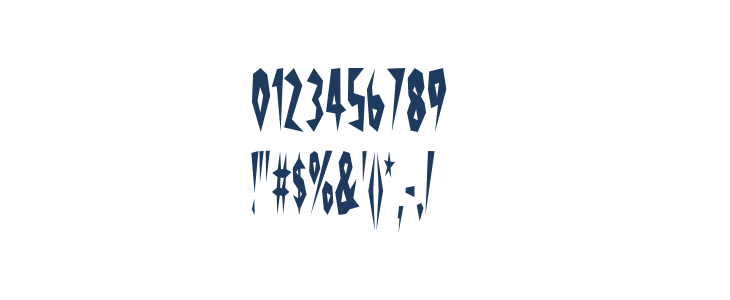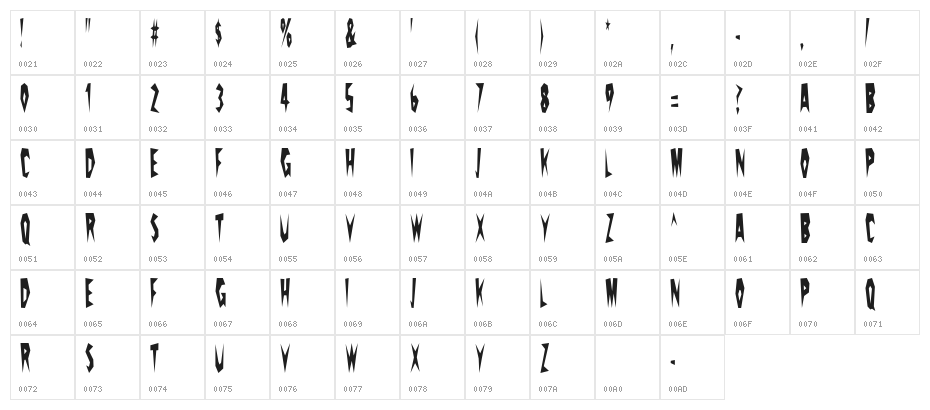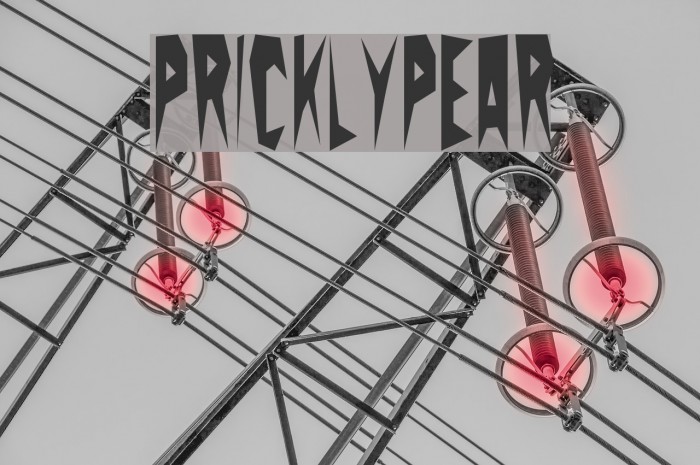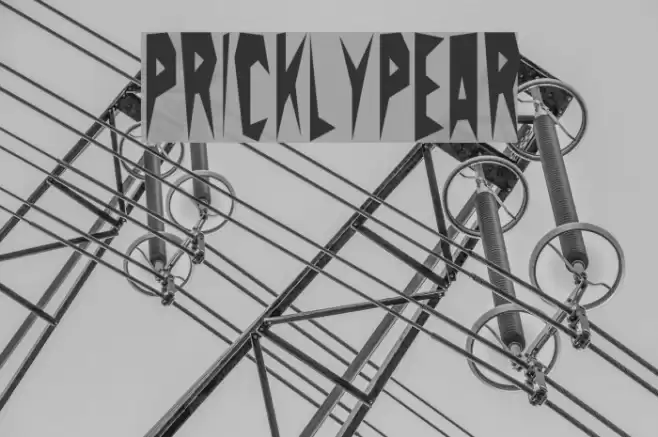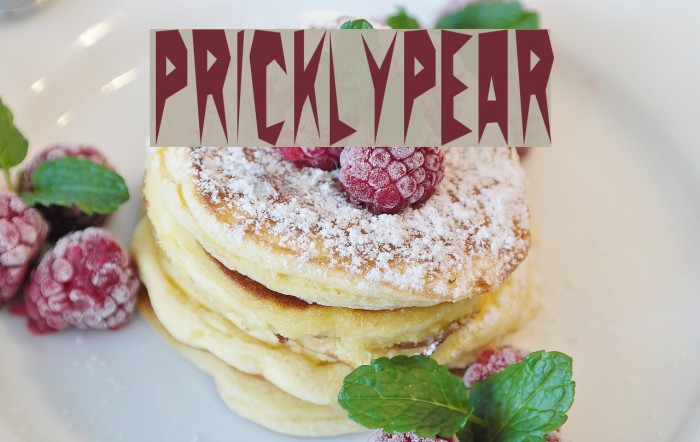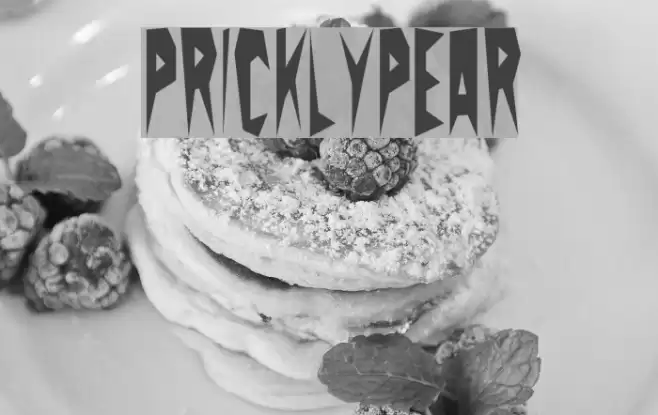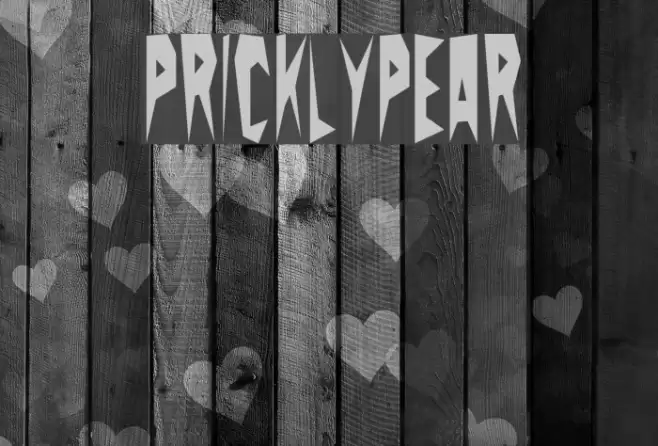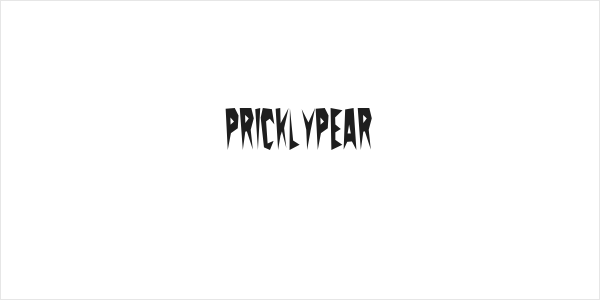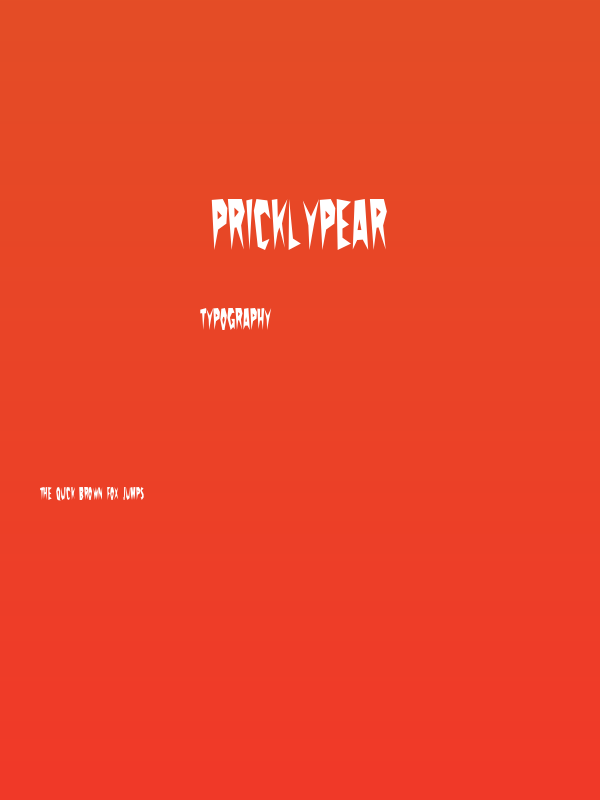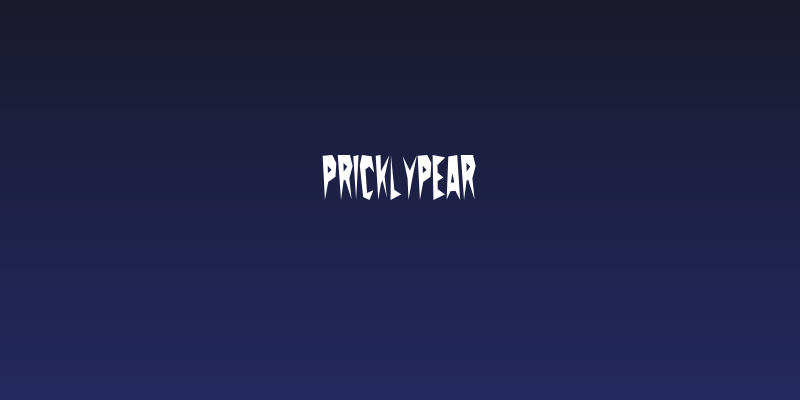
PricklyPear Font
PricklyPear Description
This font features a bold and jagged design, reminiscent of sharp, angular shapes that evoke a sense of edginess and dynamism. The characters are highly stylized with pointed edges and irregular forms, creating a visually striking appearance. The uppercase and lowercase letters maintain a consistent theme of sharp angles and bold strokes, while the numbers and special characters follow suit with similar jagged edges. This font's unique style makes it stand out, offering a dramatic and eye-catching look that is perfect for creative and unconventional design projects.
| Proposed Projects | Ideal for music album covers, edgy posters, Halloween-themed designs, or any project requiring a bold, unconventional typeface. |